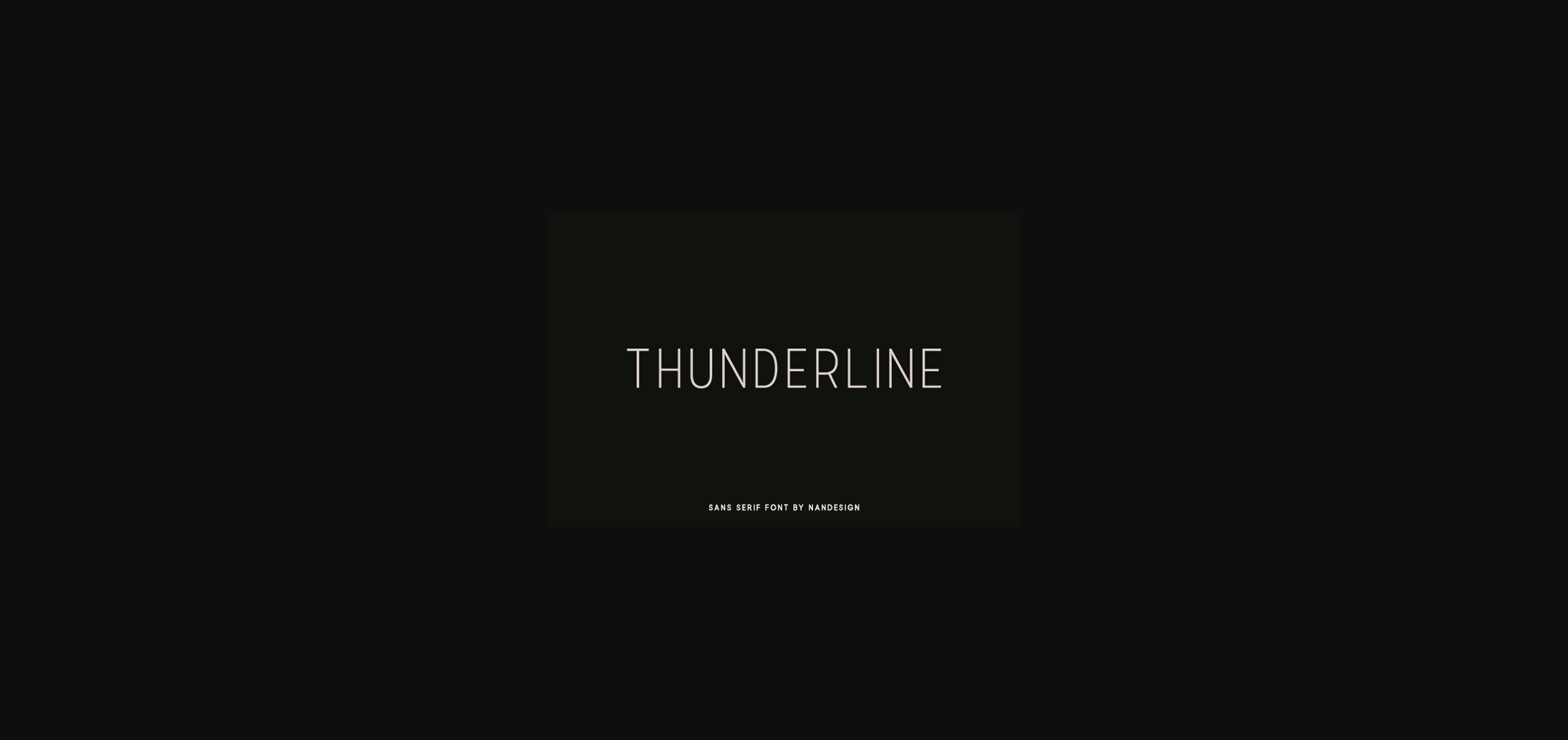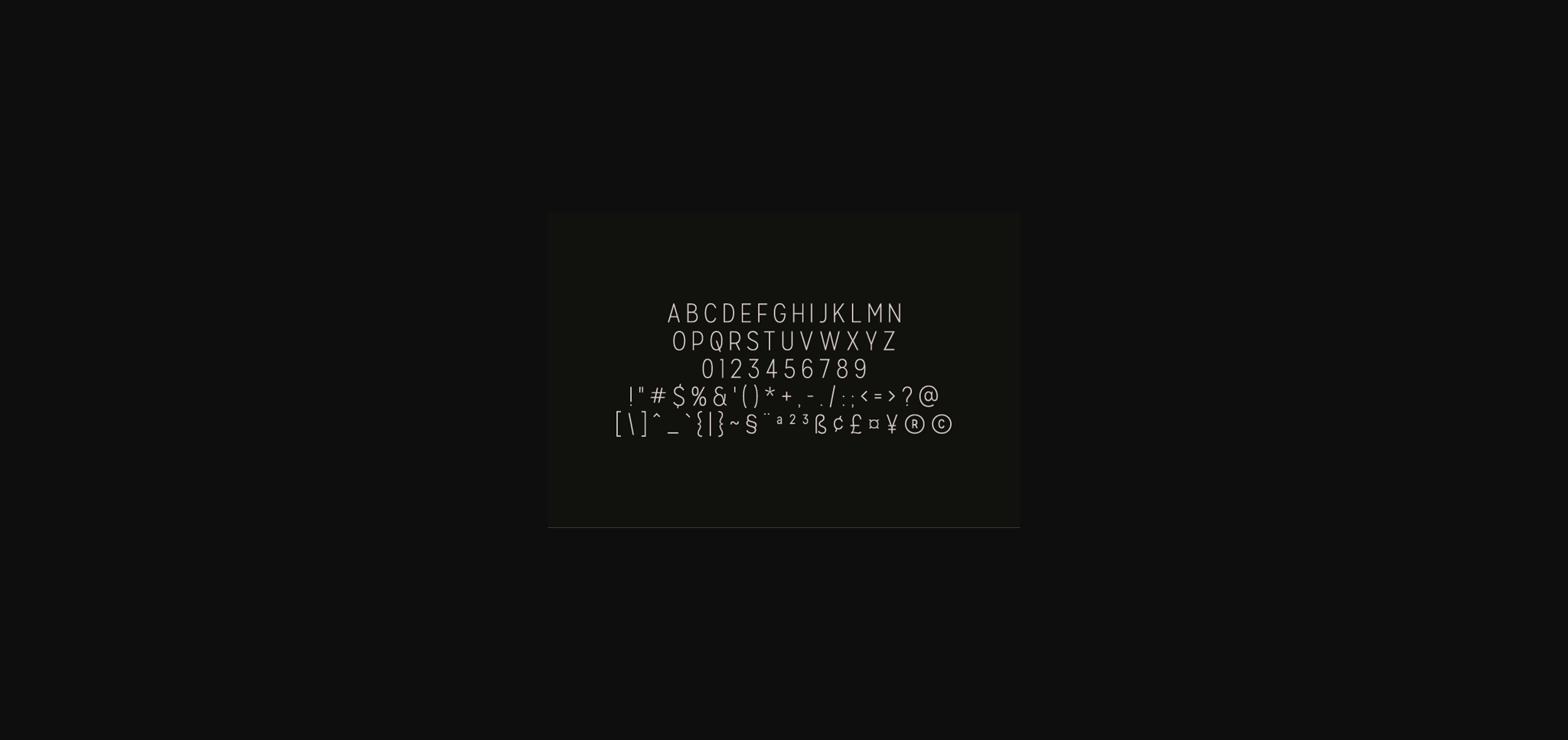
Thunderline Font
About Thunderline Font
Thunderline is a distinct, elegant sans serif font that blends traditional influences into a contemporary aesthetic. Its well balanced Latin details contain distinctive contrasts. Use Thunderline to achieve an exquisite, yet subtle look and maximum versatility.